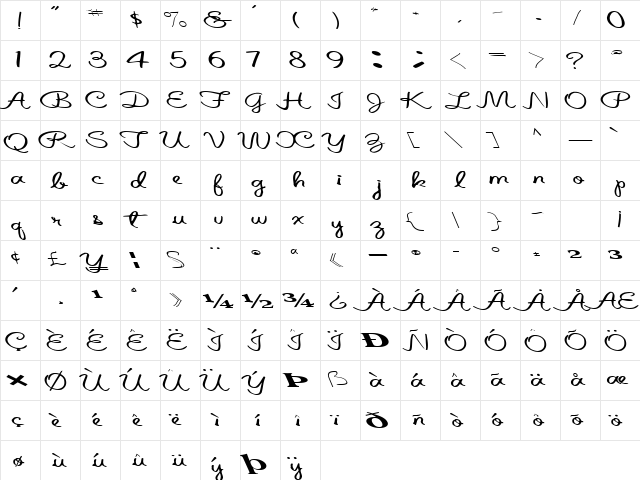
AlteredStates67 Regular Font Preview
AlteredStates67 Regular
Design Context for AlteredStates67 Typeface
AlteredStates67 is a composed and adaptable typeface that performs quietly and consistently across a wide range of design contexts.